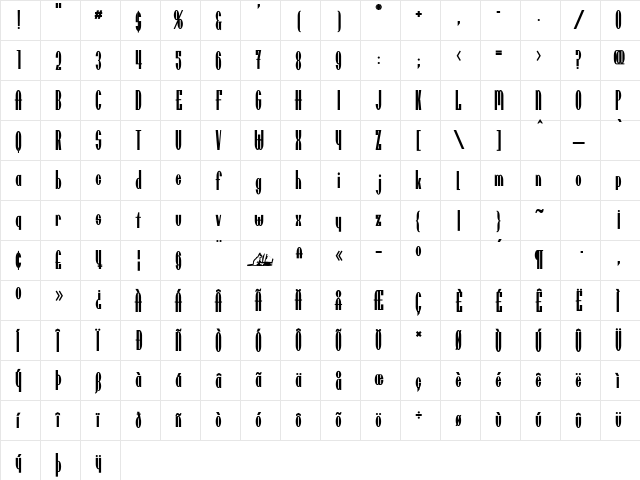
Utusi Star Bold
Design Context for Utusi Star Typeface
Utusi Star offers clean, dependable letterforms without strong stylistic allegiance, making it a practical choice for designers who need flexibility. The heavy weight commands attention and anchors typographic hierarchies.